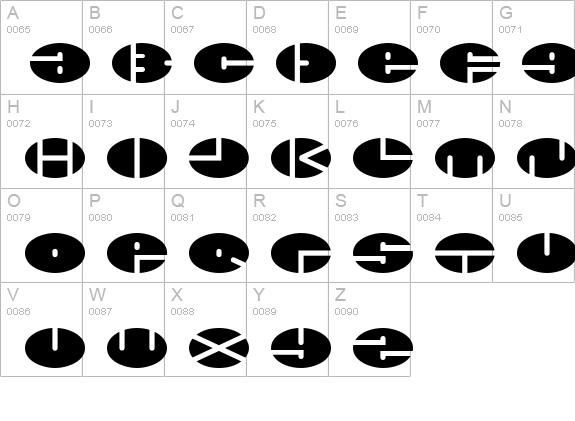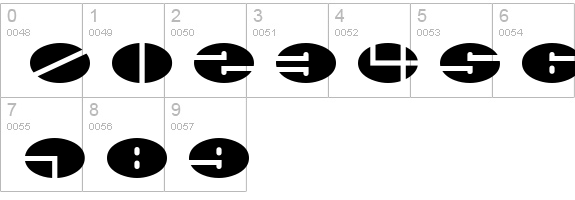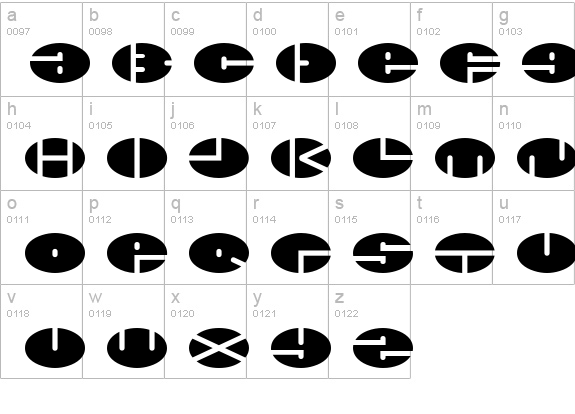
xminus Font Details
Introducing Xminus Font - a sleek and modern typeface designed to make a bold statement in any creative project. This versatile font features clean lines and a contemporary style that exudes sophistication and elegance. With its unique letterforms and sharp edges, Xminus Font adds a touch of edgy flair to any design. What sets Xminus Font apart is not only its striking appearance but also the fact that it is available for free download at FontsMarket.com. This means that you can easily incorporate this stunning font into your designs without breaking the bank. Whether you're working on a branding project, website design, or any other creative endeavor, Xminus Font is sure to elevate your work and leave a lasting impression. Don't miss out on the opportunity to enhance your designs with the stylish and modern Xminus Font. Download it for free today at FontsMarket.com and take your projects to the next level!